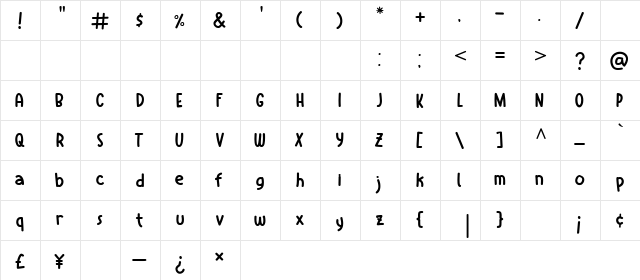
RelayfunDEMO Regular
| Designer | ntngp |
Design Context for RelayfunDEMO Typeface
RelayfunDEMO trades formality for fun, with bouncy, characterful letterforms that bring warmth and energy to any project.
Font Pairing: Pairs well with a rounded or humanist sans for body copy, maintaining the friendly tone without relying on RelayfunDEMO to carry extended reading.
Pro Tip: Avoid using RelayfunDEMO for long passages of text — it works best for headlines, labels, and short calls to action.